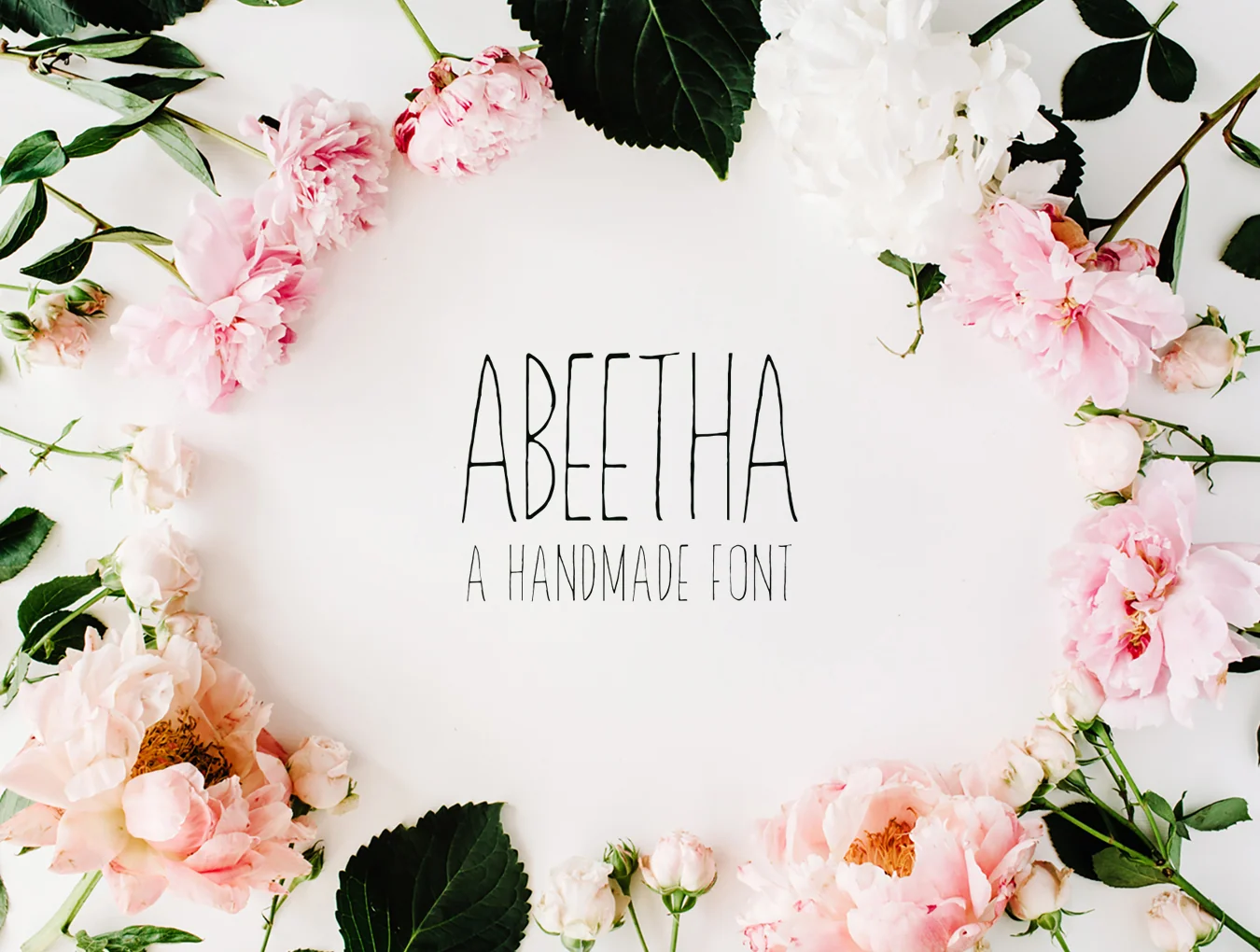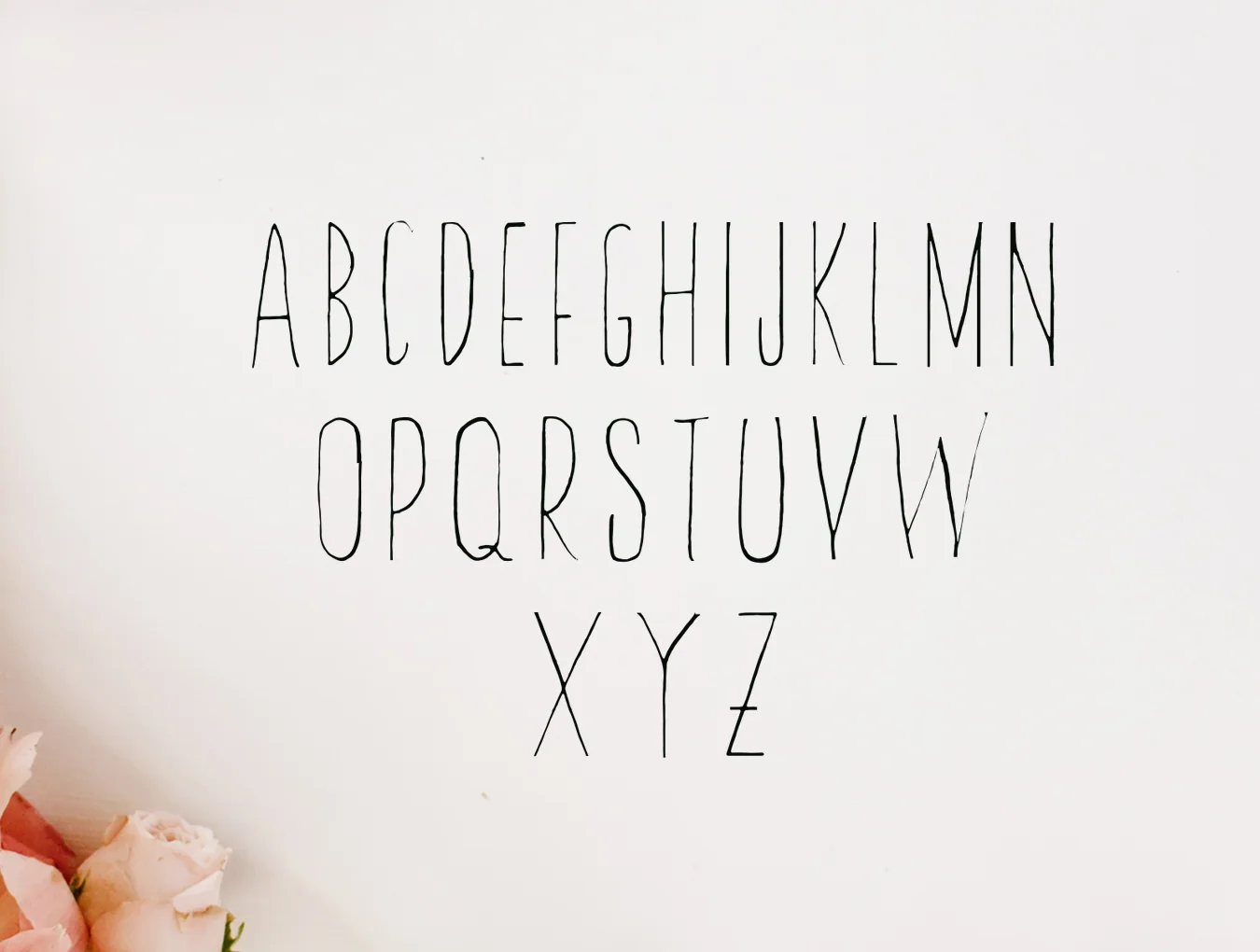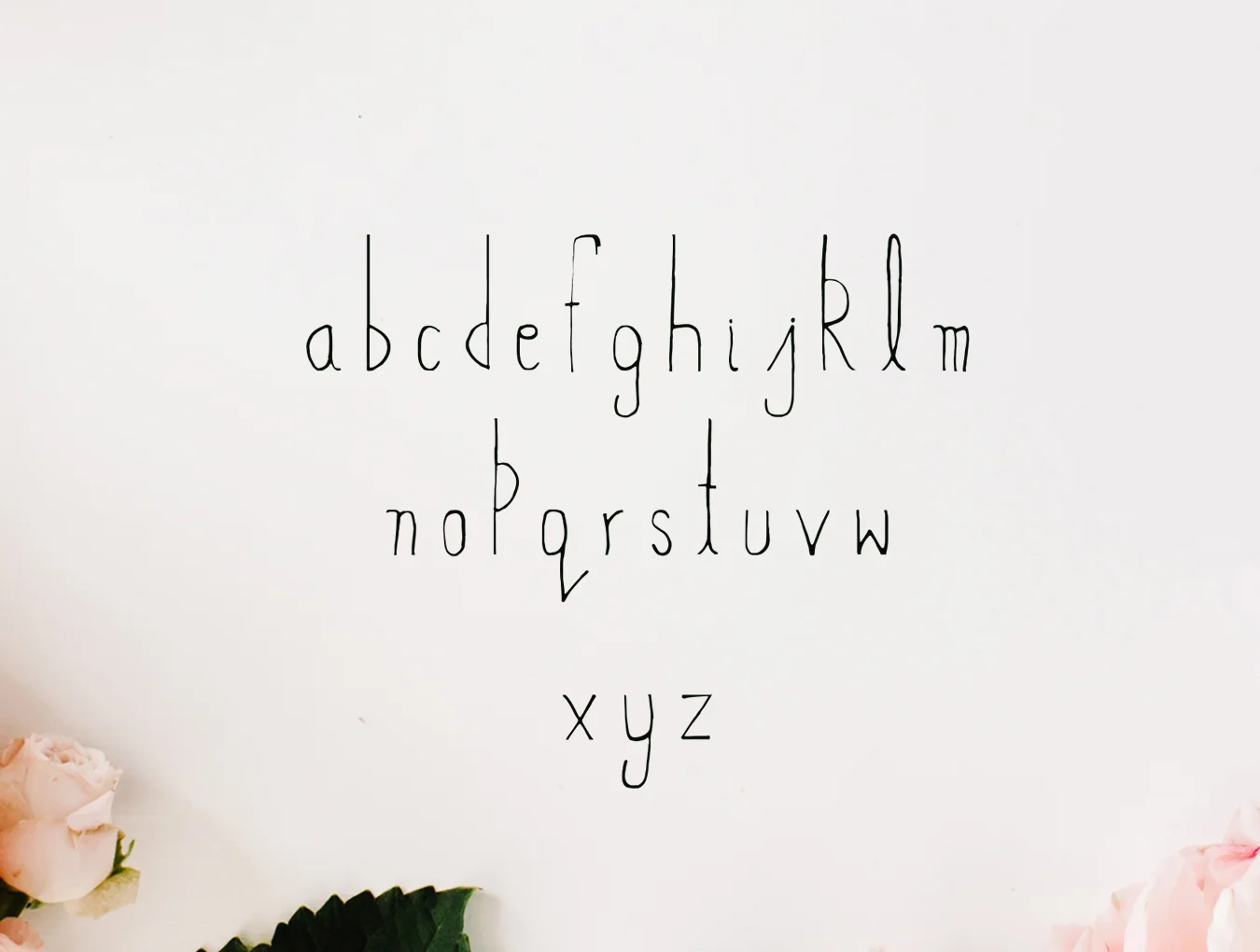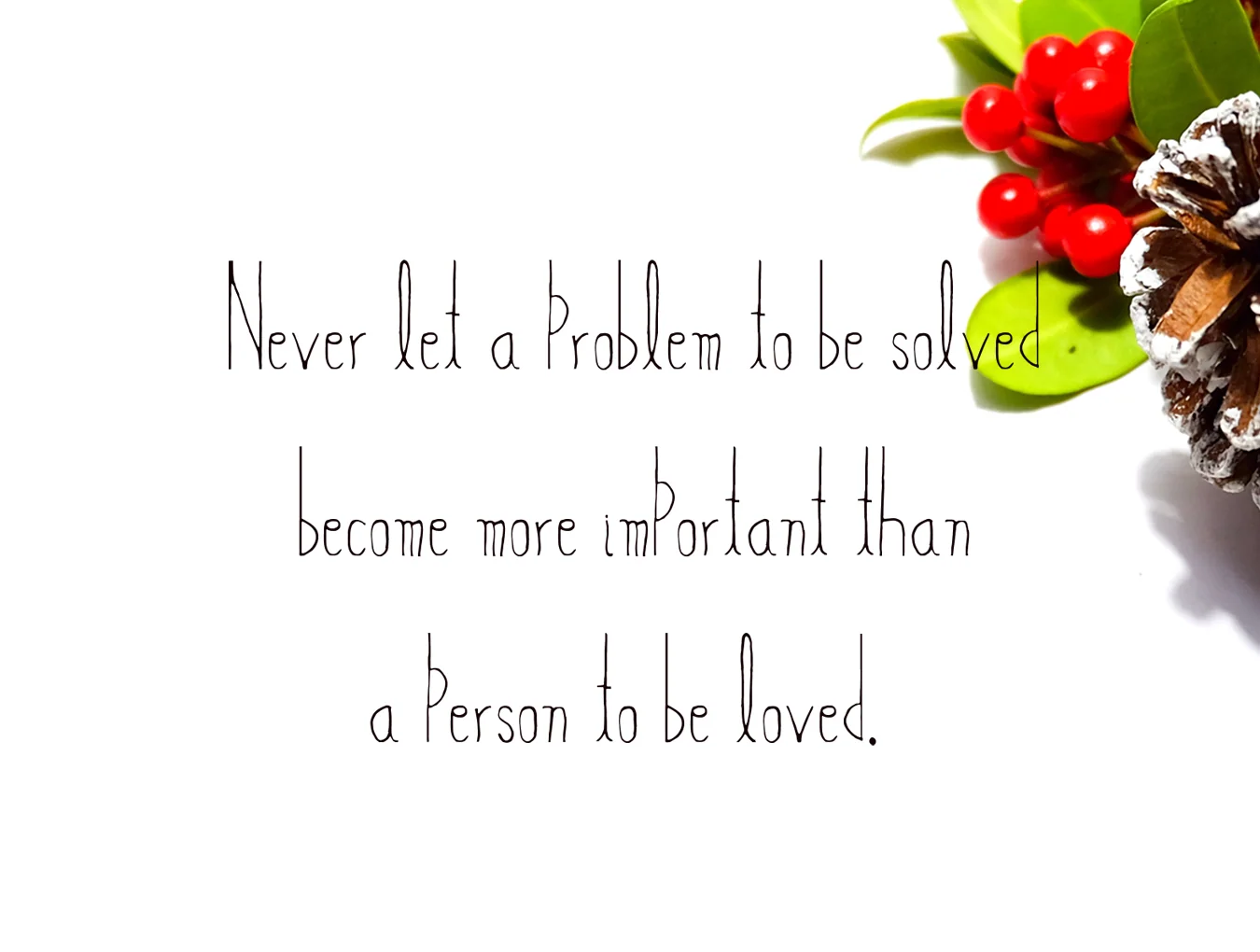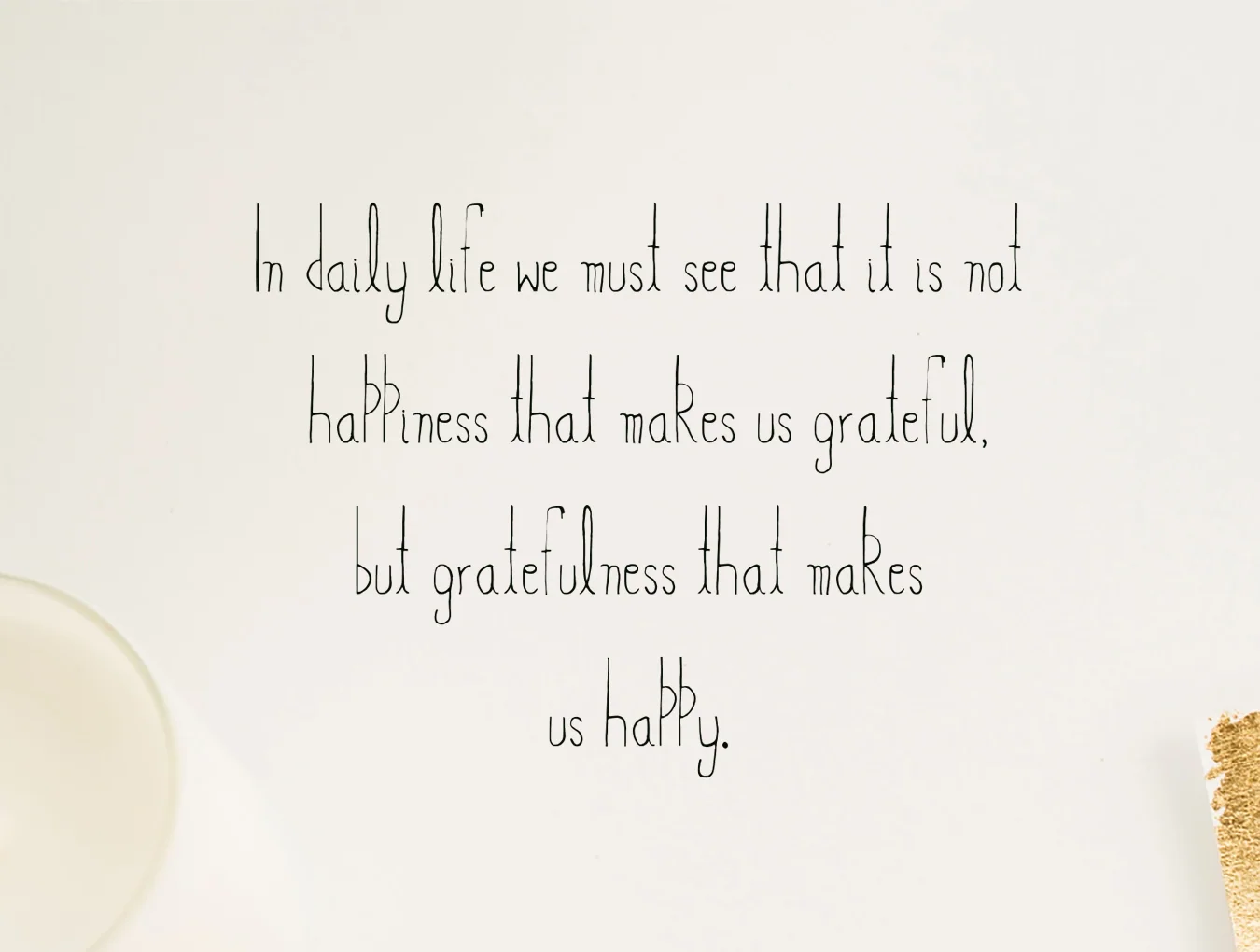
Abeetha Handmade Font
Neat hand-drawn sans serif typeface
Handcrafted display typeface
Abeetha is a neat handwritten sans serif typeface featuring full uppercase and lowercase letters, numbers, and alternate characters. Ideal for logos, prints, quotes, badges, labels, packaging, blogs, websites, headlines, banners, posters, T-shirts, magazines, templates, and promotional designs.